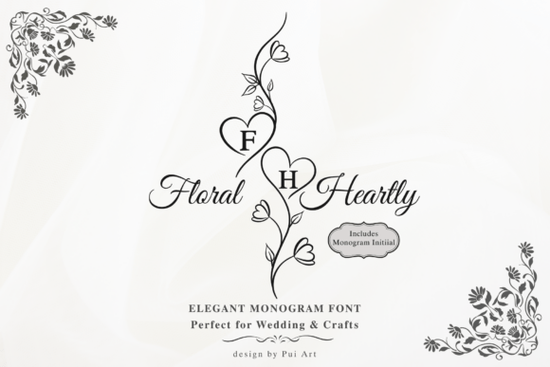
If you've been looking for a decorative monogram font that blends romantic charm with natural details, the Floral Heartly Monogram Font is worth a serious look. Every letter sits inside a delicate heart frame wrapped with botanical vines and soft petals the kind of layered detail that makes wedding invitations, personalized gifts, and branded materials feel genuinely special. It's also optimized for Cricut and Silhouette machines, so the clean paths cut smoothly without extra cleanup.
What makes this monogram font different from other decorative fonts?
Many decorative fonts aim for elegance, but few combine heart-shaped frames with intricate floral ornamentation the way Floral Heartly Monogram does. Each glyph is carefully illustrated so the vines and petals complement the letter inside without crowding it. The result stays readable even at smaller sizes useful for gift tags, business cards, or delicate favor boxes.
Compared to something like a candy-colored, bubbly style, this font leans soft and organic. It's less playful pop-art, more romantic garden. That tone distinction matters a lot when you're designing for weddings, anniversaries, or boutique branding where the mood needs to feel calm and refined rather than bold and energetic.
Which projects work best with a floral heart monogram?
This style fits a surprisingly wide range of creative work. Here are some popular uses:
- Wedding monograms place cards, favor boxes, cake toppers, and invitation headers
- Personalized gifts mugs, tote bags, and framed prints with initials
- Small business branding logos or packaging for florists, beauty brands, and boutiques
- DIY home decor wall decals, throw pillows, and seasonal wreath accents
- Print-on-demand products greeting cards, stationery, and sticker sheets
Does it work well with Cricut and Silhouette?
Yes. The font was built with cutting machines in mind. The clean vector paths and well-defined edges mean you won't spend extra time repairing broken lines in Design Space or Silhouette Studio. For anyone who regularly deals with intricate cuts, that reliability saves real time over the course of a large order.
Pair it with vinyl, cardstock, or heat-transfer material and you're set. The floral details hold up surprisingly well at medium and large scales. At very small sizes, some of the finer vine elements may simplify, so it's worth doing a test cut before committing to a full batch.
How does it compare to other decorative fonts available?
Floral Heartly Monogram occupies its own space romantic, botanical, and heart-centered. When that's the exact mood you need, it's a strong match. You can see the full character set and download details on the product page or browse Sugar Pop, Dog Love, Hand Tool, and Polka Dot Duo on Creative Fabrica to compare styles directly.
Is this font a good value for small businesses?
If you regularly create monogram designs wedding suites, personalized merchandise, POD products a single font purchase can replace hours of custom illustration work. You type the initials, resize, and cut or print. That workflow is especially helpful during peak seasons like Valentine's Day, Mother's Day, and summer wedding months when order volume climbs and turnaround time matters.
Quick checklist before you buy
- Check your software confirm Design Space, Silhouette Studio, or your design tool supports OTF/TTF decorative fonts
- Test a preview type the exact initials or letters you'll use most and check readability
- Consider your smallest cut size measure the scale and verify the floral details stay clean
- Pair it with a simple body font use a clean sans-serif for body text and reserve this font for monograms and headlines only